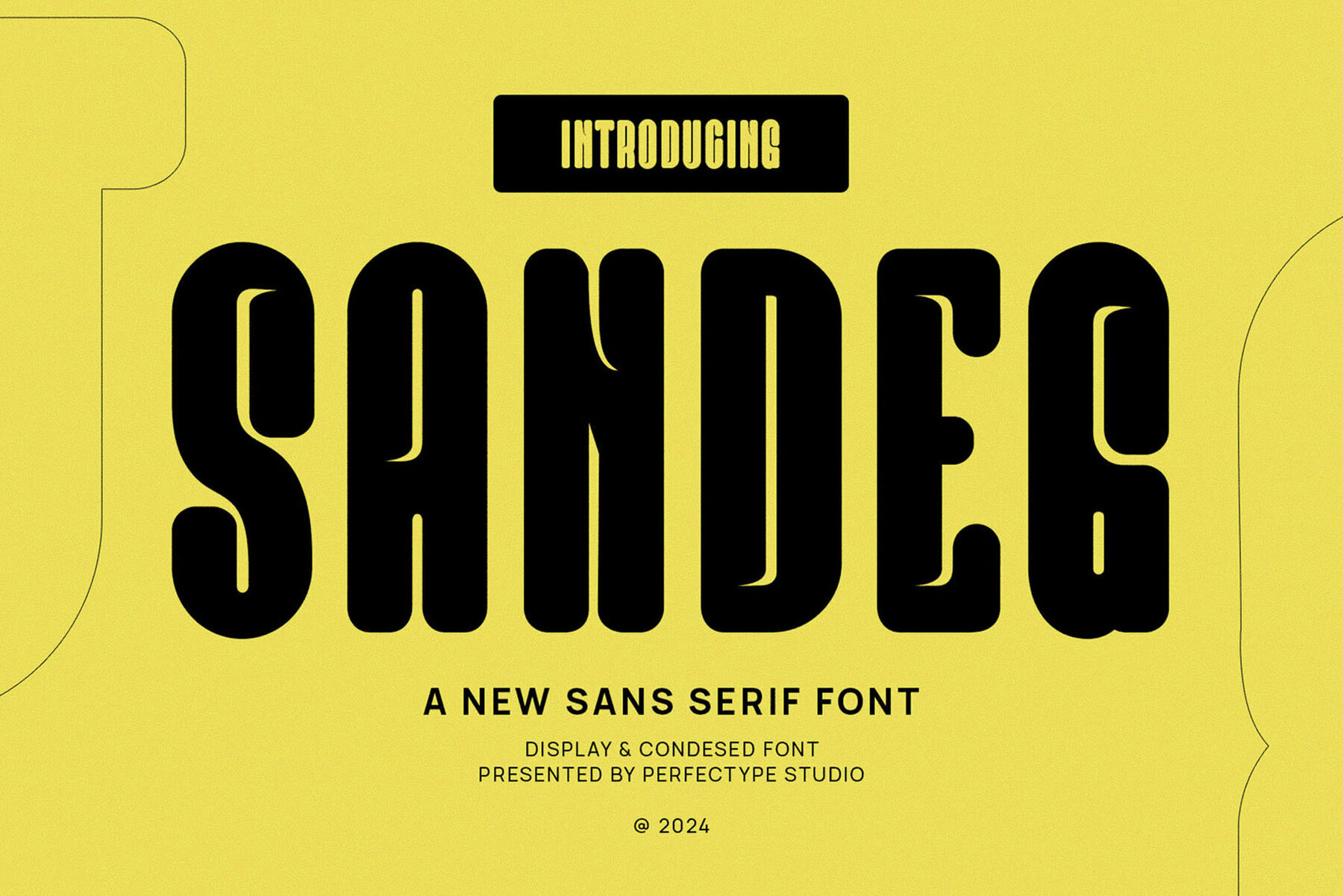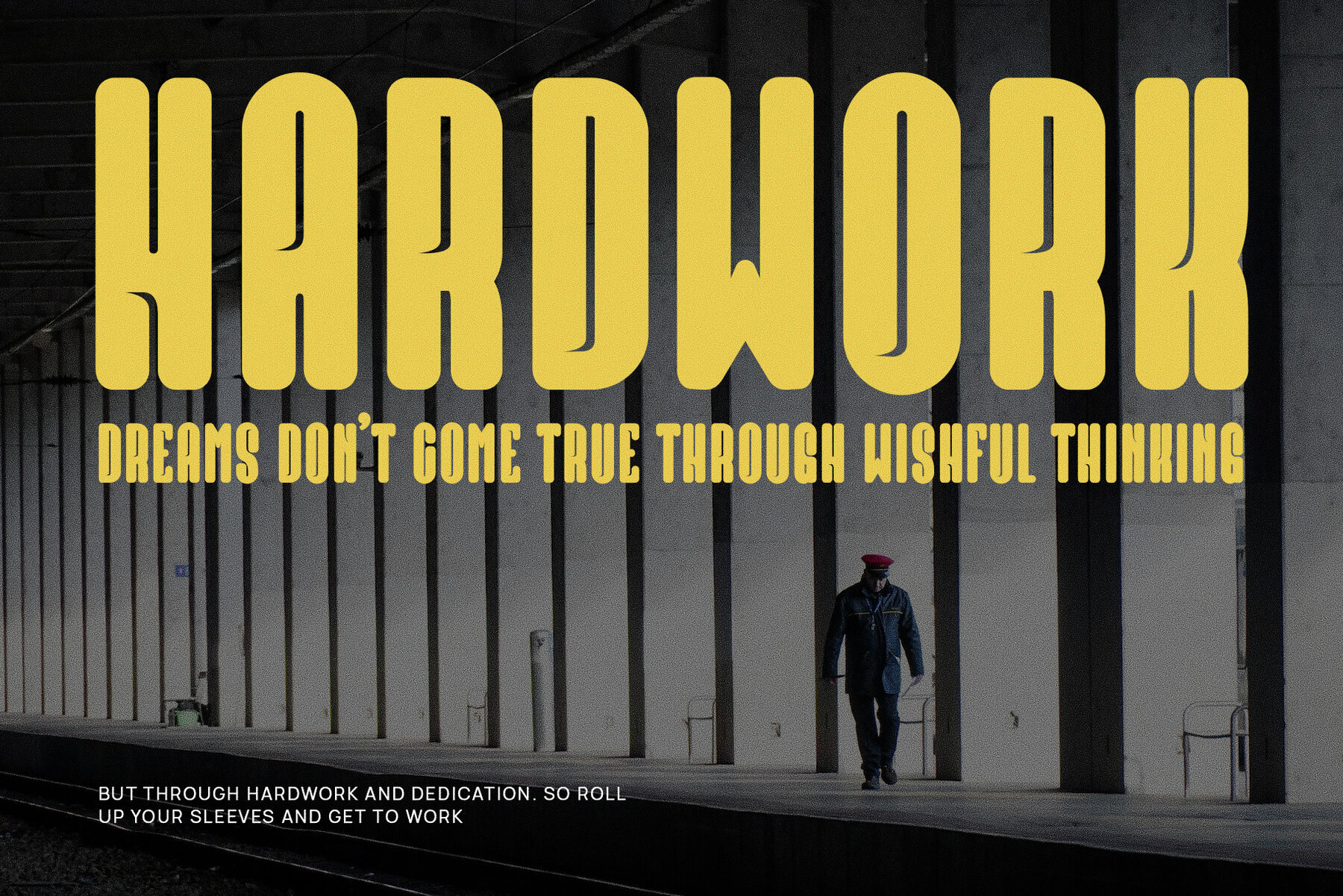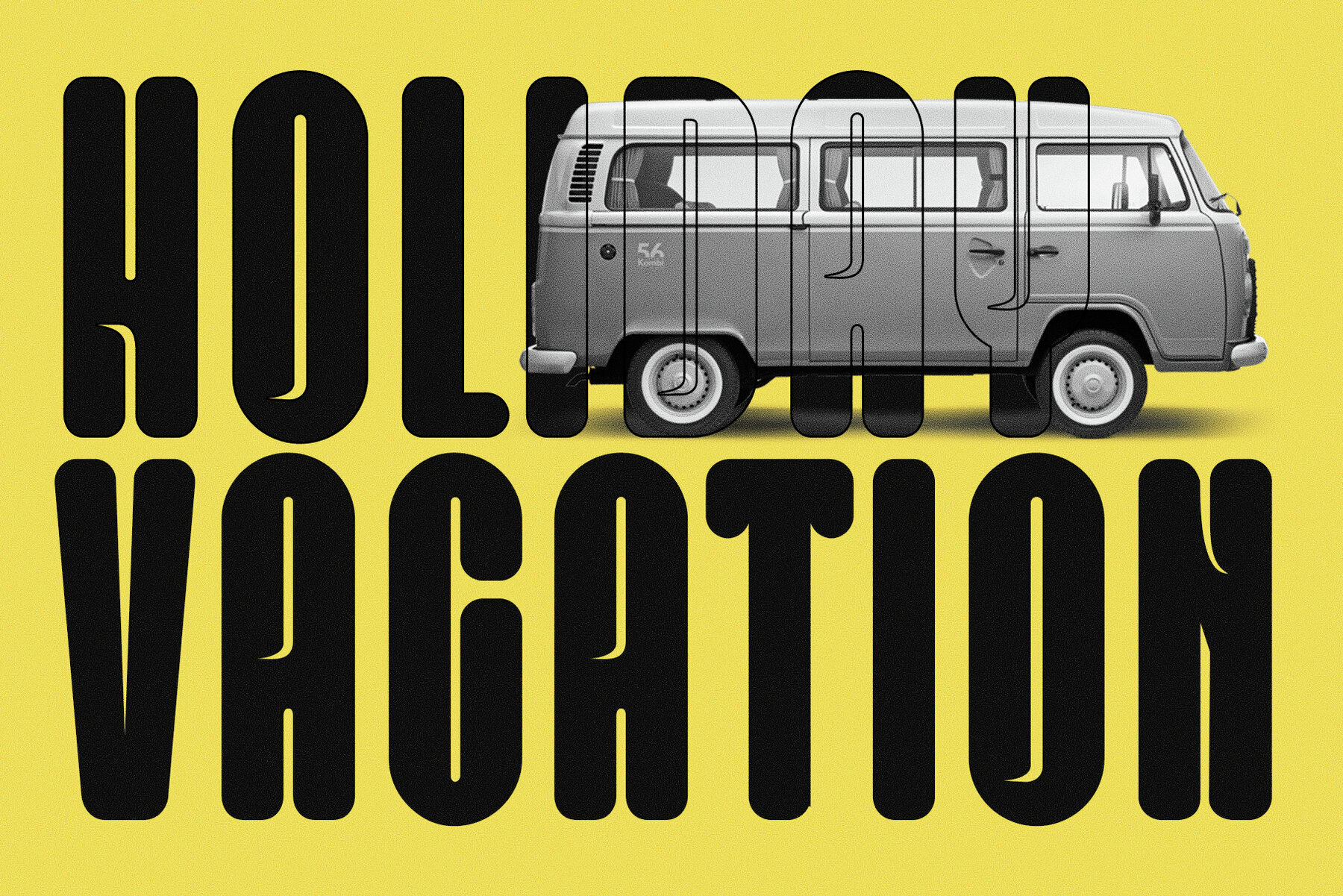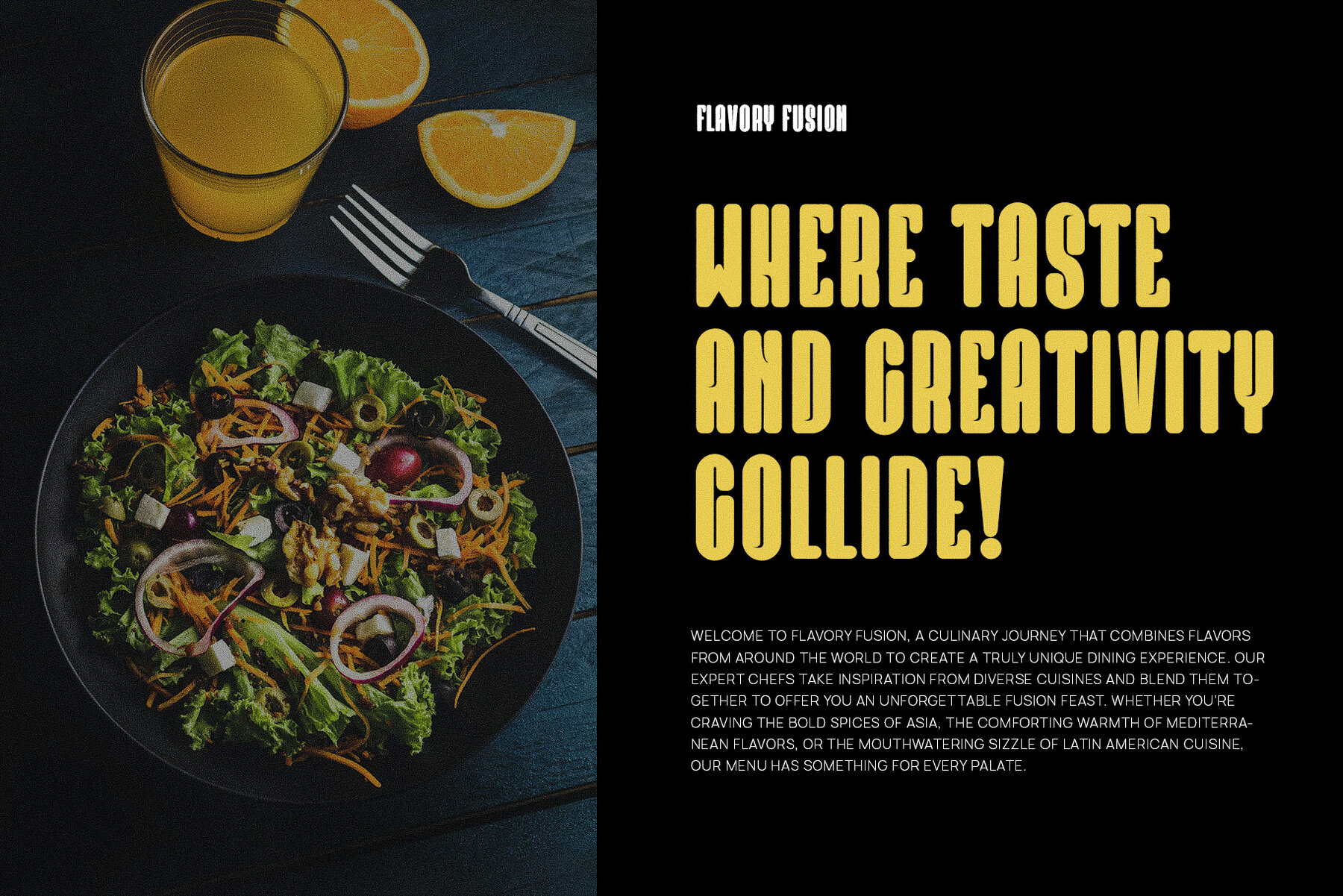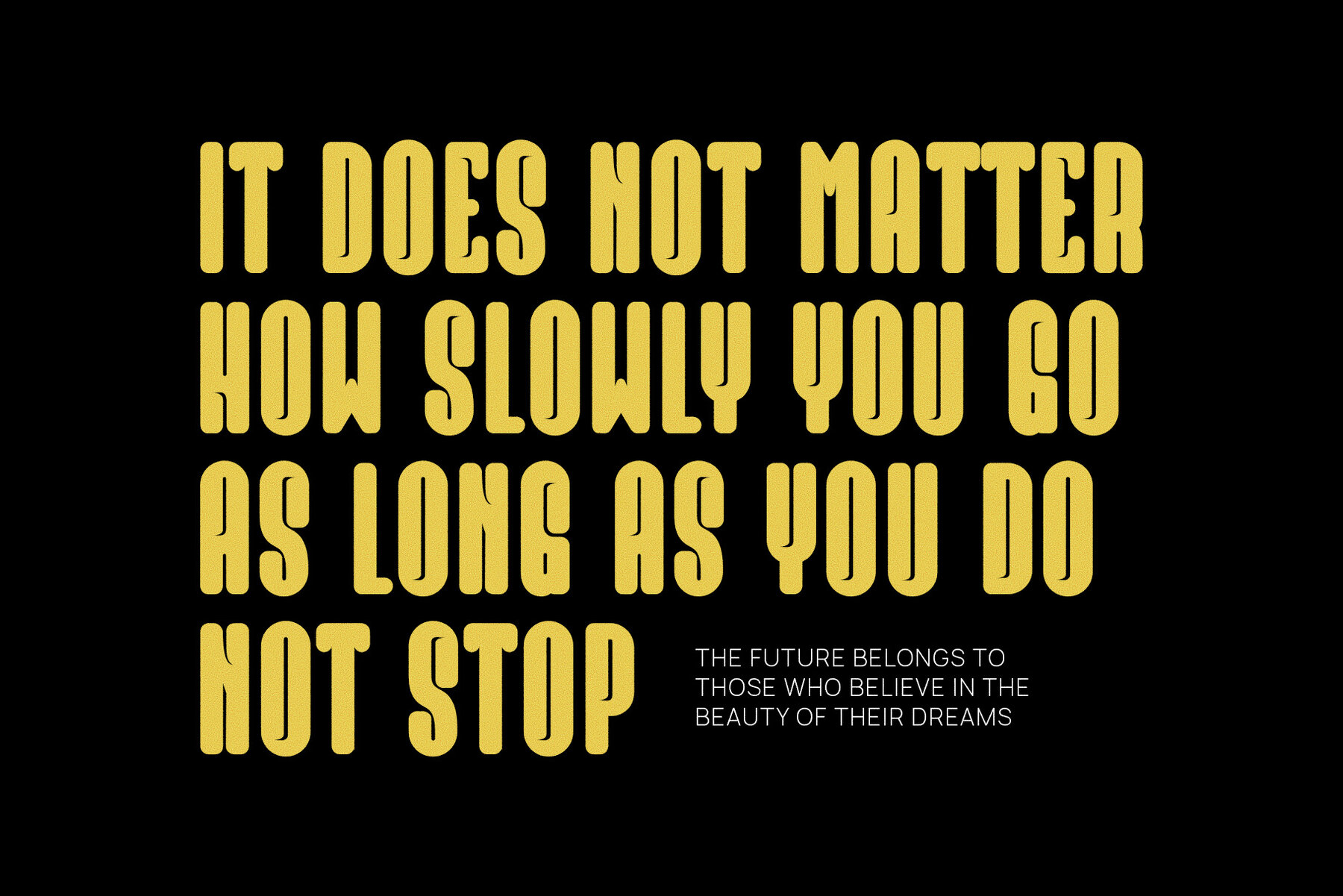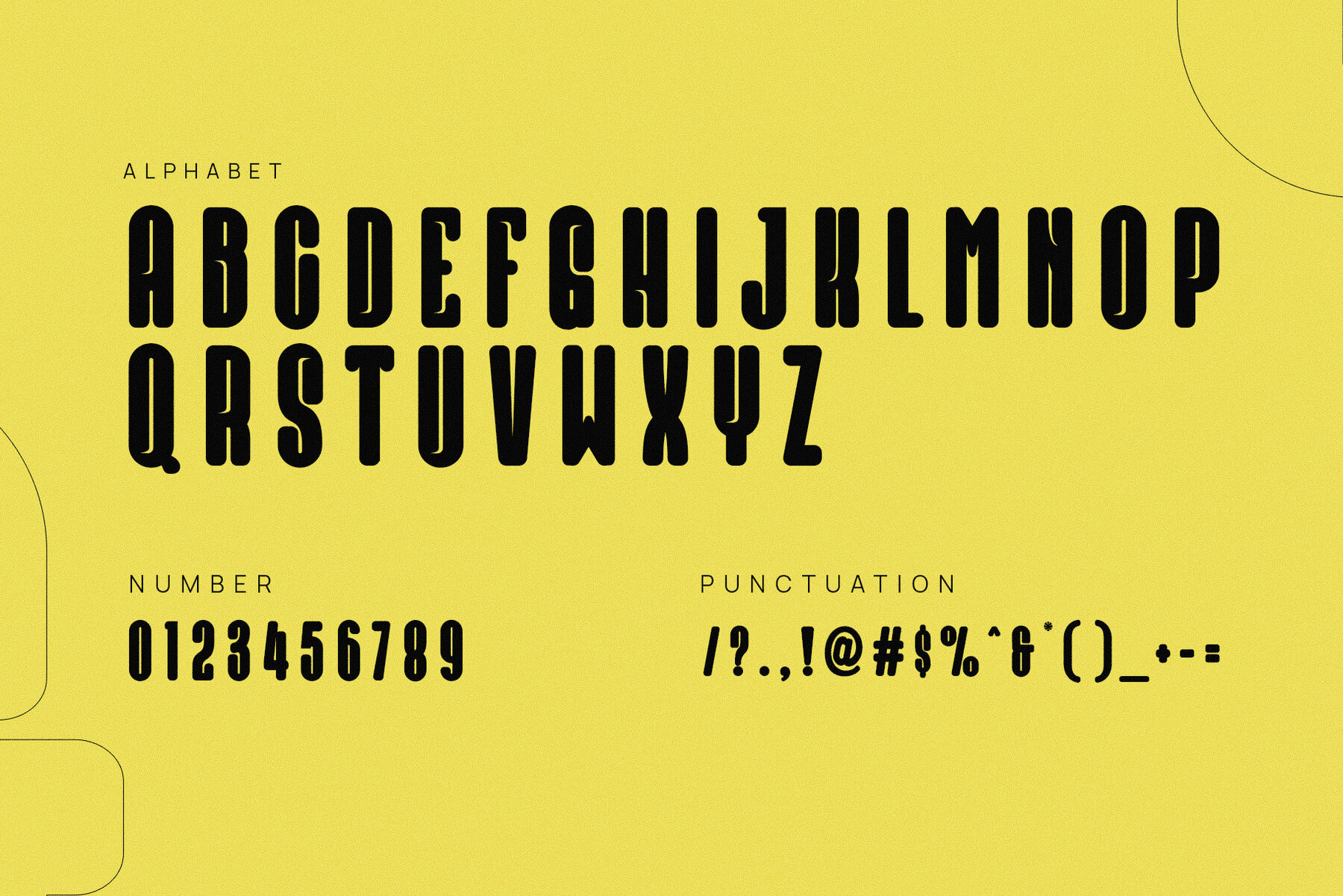
Sandeg Modern Sans Serif Font is a commanding typeface that makes a statement from the first glance. Designed with masculinity and modernity in mind, it strikes the perfect balance between sleek, geometric lines and bold, purposeful shapes. Sandeg isn’t just a font; it’s a visual force that transforms any design it touches into a reflection of strength and confidence. With its clean, powerful structure, Sandeg is tailor-made for contemporary branding and high-impact logos. The sharp edges and bold weight give it a distinct, masculine feel that commands attention, while its minimalist design ensures clarity and legibility even at smaller sizes. Its modern aesthetic makes it ideal for everything from cutting-edge product packaging to magazine spreads, giving each project a polished, professional edge. The versatility of Sandeg shines through in its ability to adapt to a variety of contexts. Whether you’re creating a striking brand identity, designing advertisements that capture attention, or laying out editorial content that feels fresh and contemporary, Sandeg delivers every time. Its neutral yet dynamic character set allows it to seamlessly blend into both digital and print media, providing a consistent visual presence across all platforms. Sandeg Modern Sans Serif Font isn’t just about style; it’s about impact. Its geometric simplicity combined with a masculine sensibility ensures that your design will not only look great but also feel authoritative. Perfect for brands that value strength, innovation, and clean design, Sandeg is the font that lets your ideas stand out with clarity and power.